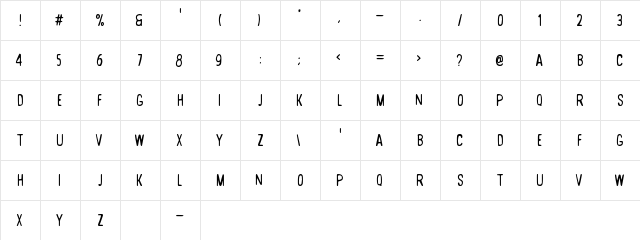
Desert Road Regular
| Designer | Zaffar Ansari |
Design Context for Desert Road Typeface
Desert Road takes a measured approach to typography — its balanced proportions and neutral character make it a reliable workhorse for both digital and print work.